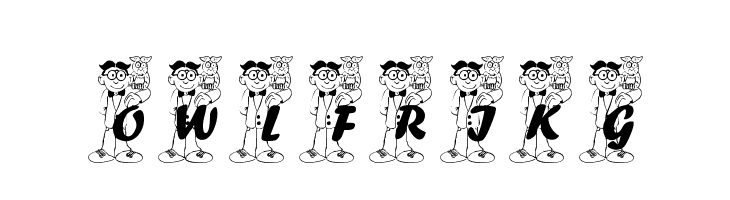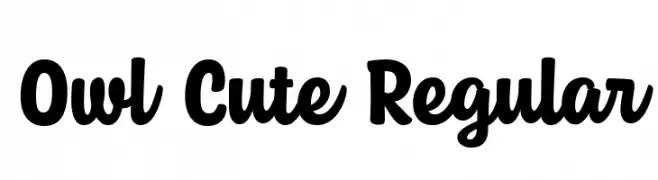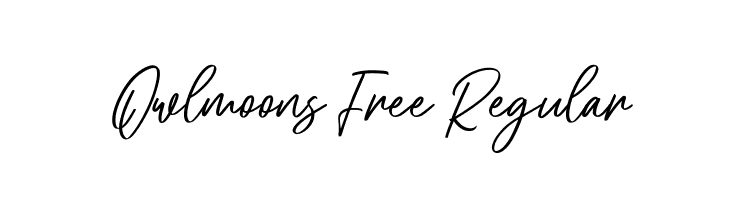
A casual, handwritten font with fluid, slightly irregular strokes.
A bold, decorative font with intricate geometric patterns and strong contrast.
A versatile collection of owl icons in multiple illustrative styles.
A playful, bold font with rounded characters and a script-like lowercase style.
A playful, hand-drawn font with tall, narrow characters and a whimsical style.
A playful font with cartoon characters accompanying each letter.
A playful, hand-drawn design featuring charming owl illustrations.
A flowing, elegant handwritten font with smooth, continuous strokes.
A playful decorative font of assorted owl icons.